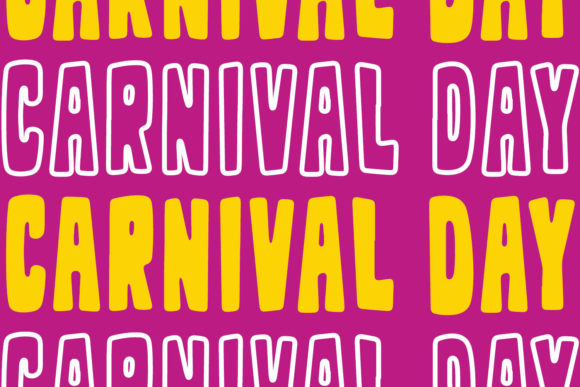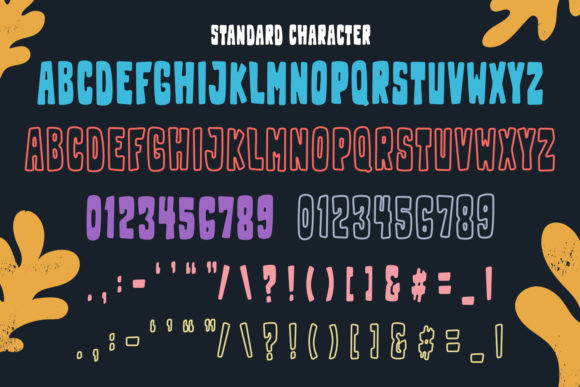
Introduction to Hey Franky Font
Hey Franky is a bold and outline lettered display font.
This font will easily add a fun touch to any craft that you wish to develop .
Key Features of Hey Franky Font